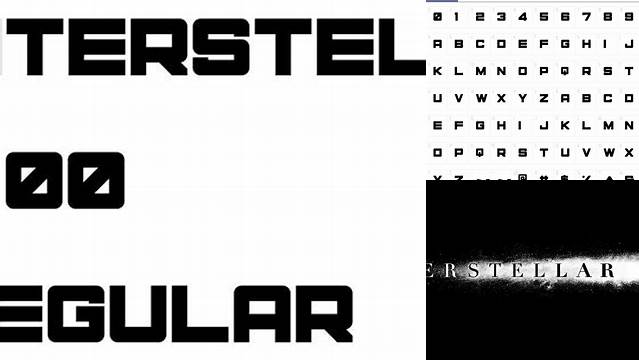
Hey guys! Are you on the hunt for that perfect font to give your designs a futuristic and cinematic vibe? Look no further! The Interstellar font family has become a go-to choice for designers aiming to capture the essence of space and cutting-edge technology. In this article, we're diving deep into the world of Interstellar regular font and how you can snag it for free. We'll explore its origins, uses, and everything you need to know to make it a star in your next project. So, buckle up, and let's get started!
Interstellar Font: The Basics
Before we jump into the nitty-gritty of downloading Interstellar font for free, let's quickly recap what makes this font so special. Interstellar is known for its clean lines, futuristic aesthetic, and versatility. It's inspired by space exploration and the vastness of the cosmos, making it a fantastic choice for science fiction themes, technology-related projects, and anything that needs a modern, sleek touch. But where did this font come from, and why is it so popular?
The Origins of Interstellar Font
Understanding the background of Interstellar font can give you a better appreciation for its design and potential uses. The font family is often associated with projects that evoke a sense of modernity, innovation, and the future. Knowing its history can help you decide if it’s the right fit for your creative endeavors. Who created this iconic typeface, and what was their inspiration?
Why Choose Interstellar Regular Font?
There are tons of fonts out there, so why should you specifically go for Interstellar Regular font? This font strikes a perfect balance between readability and visual appeal. It’s clean enough to be used in body text, yet stylish enough to make a statement in headlines and logos. Let's break down some key reasons why designers love this font and why it might just be what you’re looking for. What are the standout features that make this font a top pick?
Using Interstellar Font in Graphic Design
Now that you've got the Interstellar font, let's talk about how to use it effectively in your graphic design projects. This font is incredibly versatile, but knowing its strengths can help you make the most of it. We'll explore some tips and tricks for using the font to create stunning visuals. What design principles should you keep in mind when using this font?
Interstellar Font in Web Design: Best Practices
Web design is another area where the Interstellar font can really shine. Its clean, modern look makes it a great choice for websites that want to convey a sense of innovation and professionalism. We'll discuss best practices for using the font on the web, including considerations for readability and performance. How can you optimize the font for a seamless web experience?
Interstellar Font for Logos and Branding
Looking to create a logo that stands out? Interstellar font might be just what you need. Its unique character makes it perfect for branding projects that aim for a futuristic or tech-savvy image. We'll explore how to use the font in logos and branding materials to create a lasting impression. What are some successful examples of brands using this font?
Interstellar Font: Your Go-To Modern Typeface